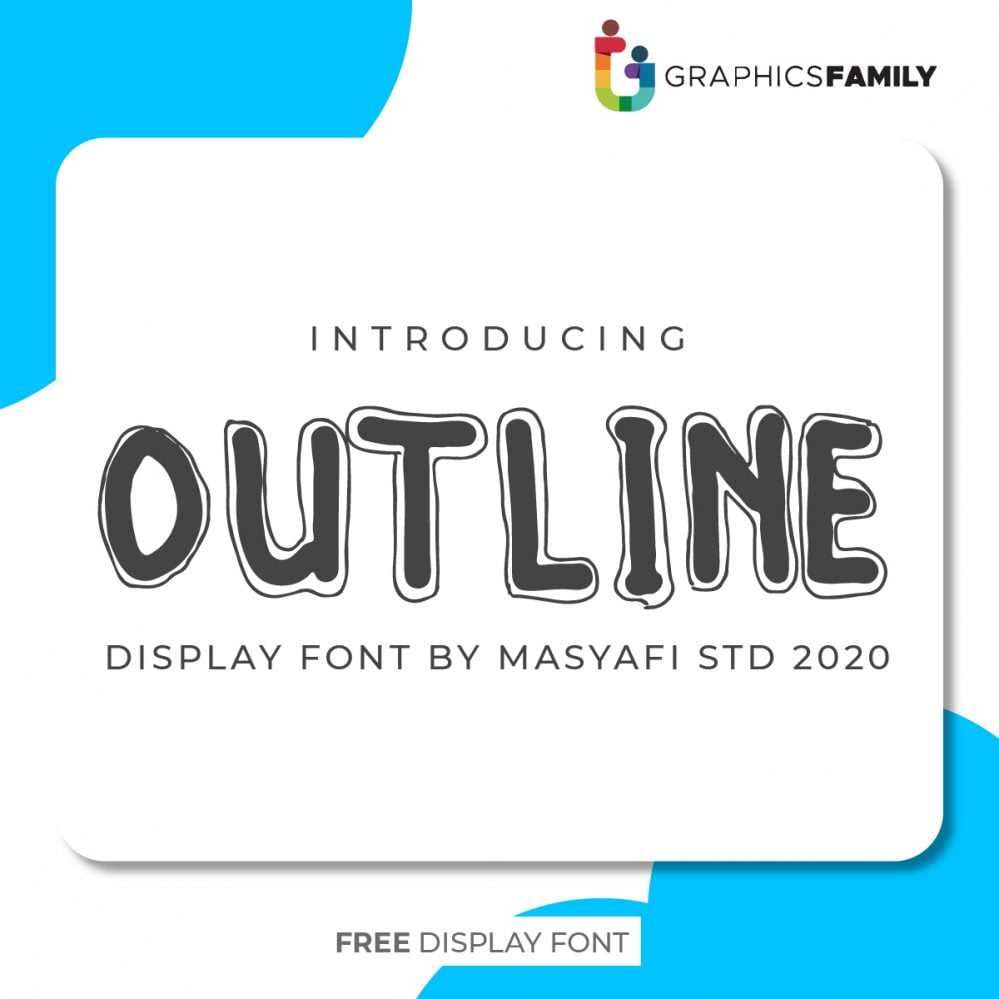
Free Outline Font Outline is a simple and chunky lettered display font. A little bit quirky, this font looks incredibly adept on a wide variety of contexts!